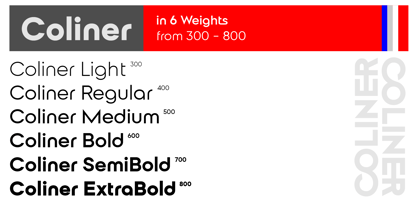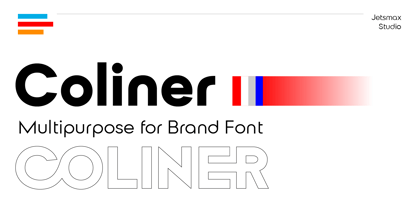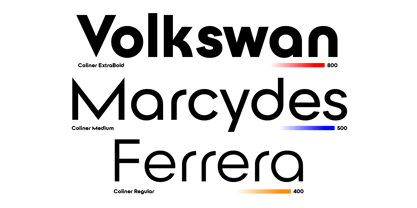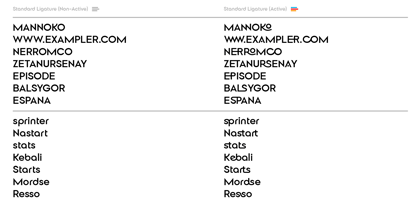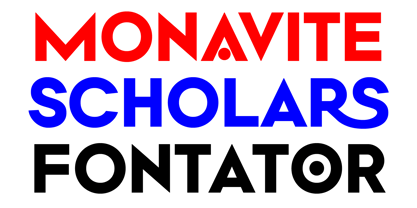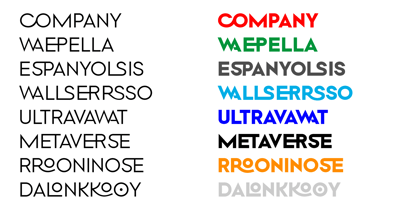
Coliner
by Jetsmax Studio
The Coliner Font Family was designed by Khairil Anwar and published by Jetsmax Studio. Coliner contains 6 styles and family package options.
Coliner is a modern, geometric font that combines clean lines with bold precision. Its design is rooted in symmetry and structure, featuring shapes that exude a sense of balance and clarity. Ideal for contemporary branding, editorial layouts, and digital interfaces, Coliner is versatile and have 5 styles from Light to ExtraBold. Whether used for headlines, logos, or minimalist designs, this font adds a touch of sophistication and modernity to any project.
Designers: Khairil Anwar
Publisher: Jetsmax Studio
Foundry: Jetsmax Studio
Design Owner: Jetsmax Studio
Founded in 2018, Jetsmax is a Design Studio based in Makassar, South Sulawesi, Indonesia. Started as an individual project; now, we are a small team working professionally to make stunning and cool design fonts and typefaces which are suitable for any project for both personal and business purposes. We always try our best to make something new and unique to meet market expectation. Originality and consistency are our core values that we hold close in our hearts.